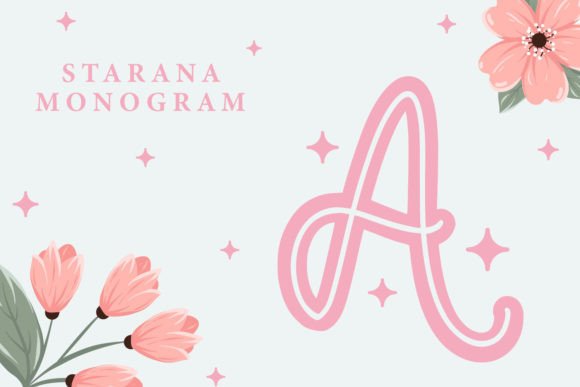
Embark on a typographic journey where elegance and charm intertwine, introducing Starana Font, the enchanting creation from Typefar. This script font, adorned with celestial brilliance, is a masterpiece that will elevate your designs to ethereal heights.
Starana Font is a symphony of handwritten strokes, each letter meticulously crafted to capture the essence of authentic penmanship. Its curves flow with an effortless grace, exuding a timeless charm that will captivate your audience.
Immerse yourself in the celestial tapestry woven into every character. Delicate star elements dance upon the ascenders and descenders, adding a touch of whimsy and magic to your creations. This enchanting font will transform your words into a constellation of beauty, leaving an unforgettable impression on all who behold them.
Whether you're crafting heartfelt birthday cards, designing enchanting invitations, or creating whimsical branding materials, Starana Font is the perfect choice. Its versatility knows no bounds, lending itself seamlessly to a myriad of projects.
With Starana Font, you'll:
- Capture the essence of romance with its delicate and alluring strokes.
- Add a touch of celestial charm to your designs.
- Make your words shimmer with an ethereal glow.
- Create unforgettable impressions that will leave a lasting legacy.
Indulge in the enchanting allure of Starana Font today and let your creativity soar to new heights. Its beauty and versatility will inspire you to create designs that captivate and enchant, leaving an unforgettable mark on the world.